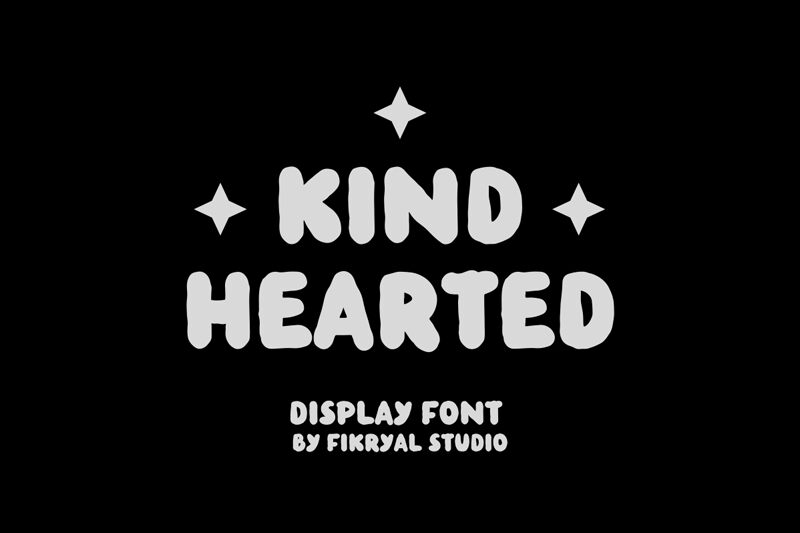
Kind Hearted font by Fikryal Studio is a free cartoon font with a clean finish. Its letters appear friendly and welcoming, each form being crafted with an informal style for a casual reading experience. The adorable letters of Kind Hearted feel approachable and trendy for equal measure, guaranteeing versatile applications for users who can make the best of its well-developed character set.
Because of its lovely modern aesthetic, the font is suitable for making banners, T-shirt designs, invitations, or greeting cards. Use it for talks with children or food packaging design for instant engagement with your viewers.